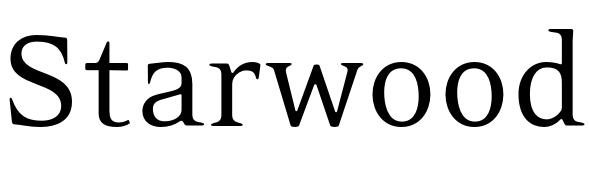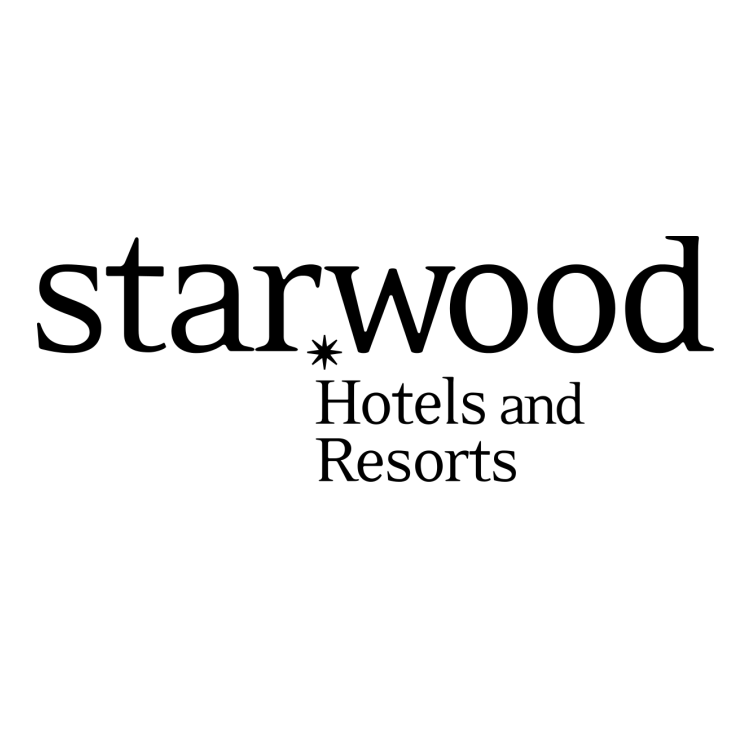
Starwood Logo Font
Fonts in UseStarwood Hotels and Resorts was a global hotel and leisure company that owned, operated, franchised, and managed hotels, resorts, spas, residences, and vacation ownership properties under 11 brands. In 2016, the company was acquired by Marriott International, forming the world's largest hotel company at the time.
The Starwood logo uses a font that resembles Eidetic Neo Regular. Rodrigo Xavier Cavazos created Eidetic Serif in 1998 and updated it with Zuzana Licko in 2000 as Eidetic Neo. You can view and learn more about the font here.